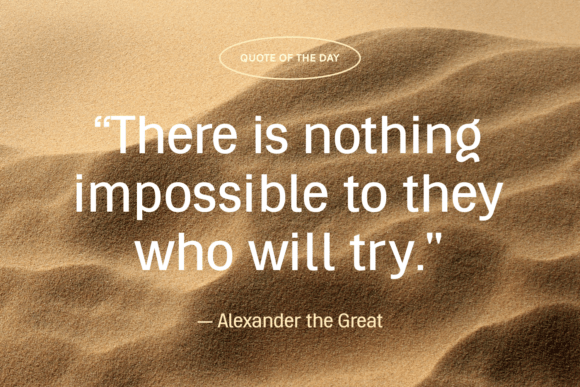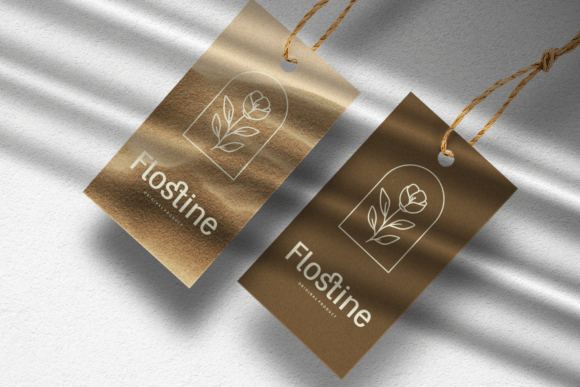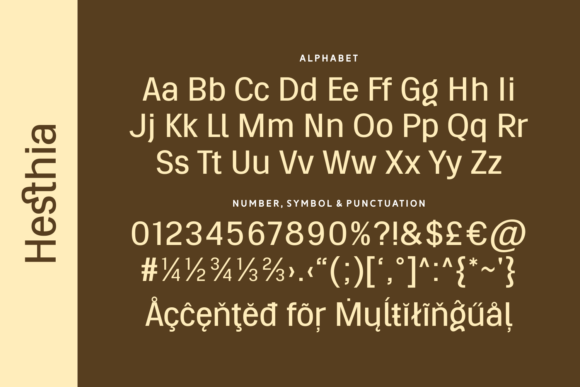
Introduction to Hesthia Font Font
Fonts play a crucial role in design, and the Hesthia Font font is a typeface that brings both character and versatility to any project. Whether you’re working on a branding project, a website, or a print design, the Hesthia Font font offers a unique style that can elevate your work.
Hesthia is a sleek modern sans serif font that blends clean minimalism with unique design details, like its distinctive letter shapes that add a creative edge.
Its smooth and contemporary look makes it perfect for branding, logos, editorial design, fashion projects, and digital media With a balance of elegance and readability, Hesthia brings sophistication to every project.
Key Features of Hesthia Font Font
Why Choose Hesthia Font Font?
The Hesthia Font font is more than just a typeface – it’s a design tool that helps you communicate your message with style and clarity. Its unique character set and versatile design make it suitable for a wide range of applications, from elegant invitations to bold headlines.
With its carefully crafted letterforms and balanced proportions, the Hesthia Font font ensures readability and visual appeal across all mediums.
What makes Hesthia Font font special?
The Hesthia Font font stands out with its unique design, exceptional readability, and versatility across various design applications.